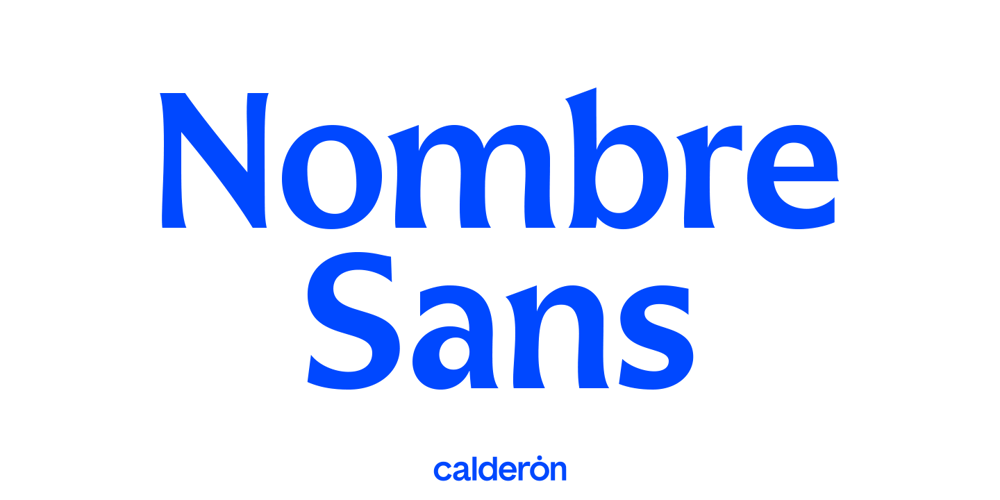
Nombre Sans Font Family was designed by Felipe Calderón and published by Estudio Calderon. Nombre Sans contains 9 styles and family package options. Nombre Sans was created mainly under the concept of «Splendid» which means: Magnificent, Gorgeous or Sumptuous. A typeface with a handcrafted concept with abundant things and accentuated shapes. The design of Franela has a particular personality in the ecosystem of typefaces where each character draws attention due to its organic shapes. Is equipped for complex, professional typography. The OpenType fonts have an extended character set to support Central and Eastern European as well as Western European languages.More about Nombre Sans www.estudiocalderon.com